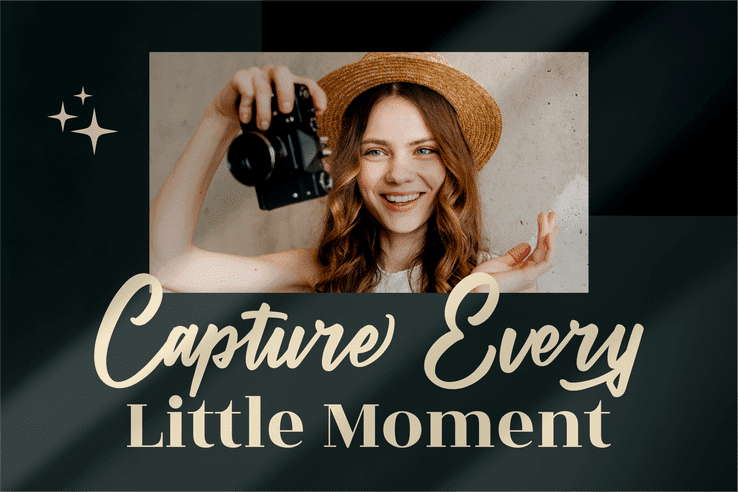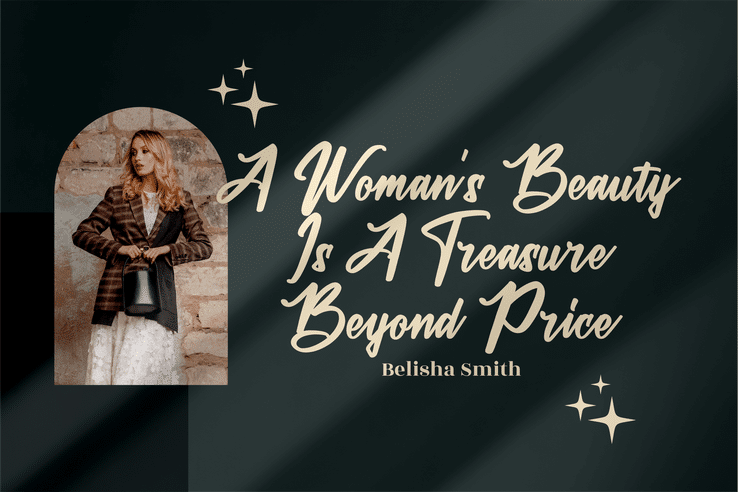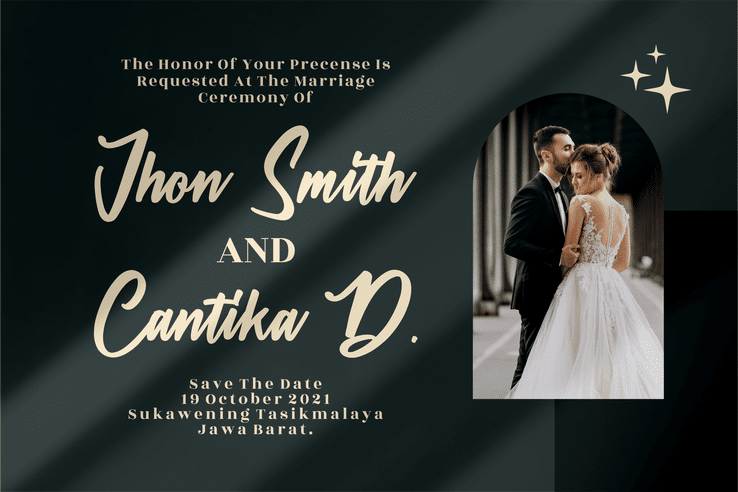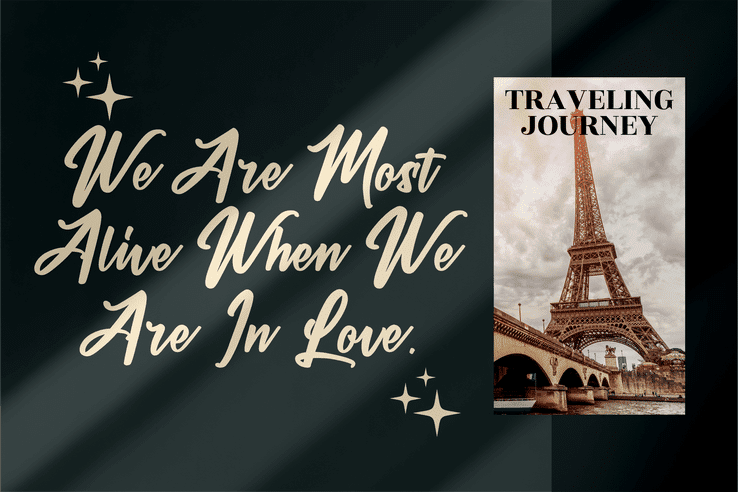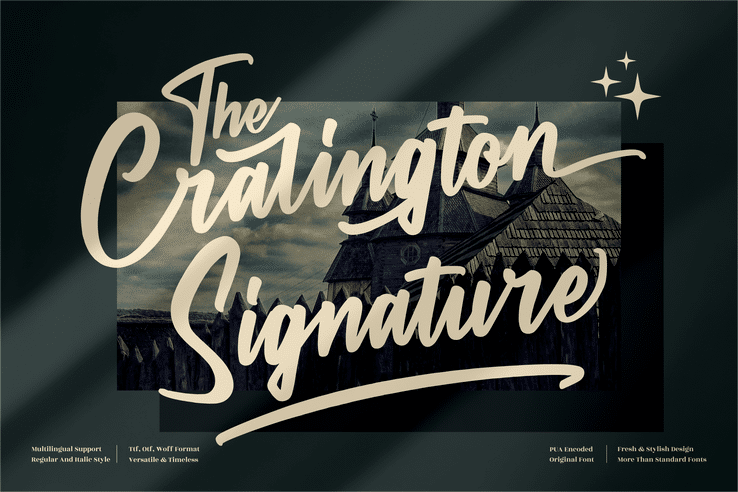
The Cralington Signature Font
The Cralington Signature Font is suitable for any projects such as logos, branding projects, homeware designs, product packaging, mugs, quotes, posters, shopping bags, t-shirts, book covers, name card, invitation cards, photography, watermark, special events, and all your other luxury projects that need a premium signature taste.